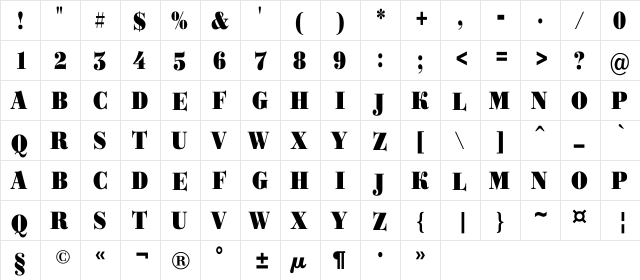
a_BodoniOrtoTitulNr Black
Design Context for a_BodoniOrtoTitulNr Typeface
a_BodoniOrtoTitulNr is a composed and adaptable typeface that performs quietly and consistently across a wide range of design contexts.